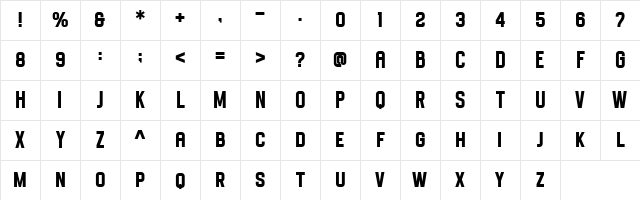
Sporta Regular Free Font
Sporta Regular
Foundry: Blankids Studio
Designer: Bangkit Tri Setiadi
Design Context for Sporta
Sporta brings high-energy athletic personality to the page - its confident, muscular forms are built for impact.
Pro Tip: Use Sporta in all-caps headlines where its athletic energy can fully express itself. Pair with a solid, simple sans for supporting text.